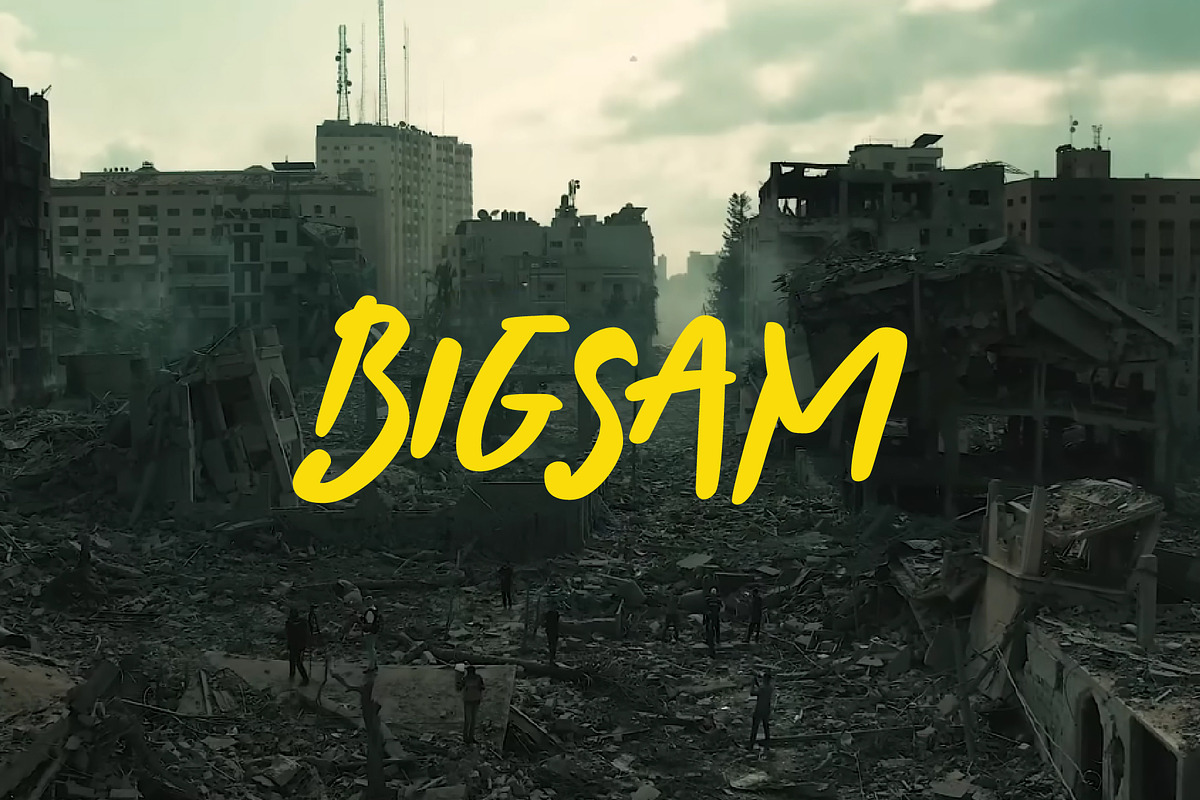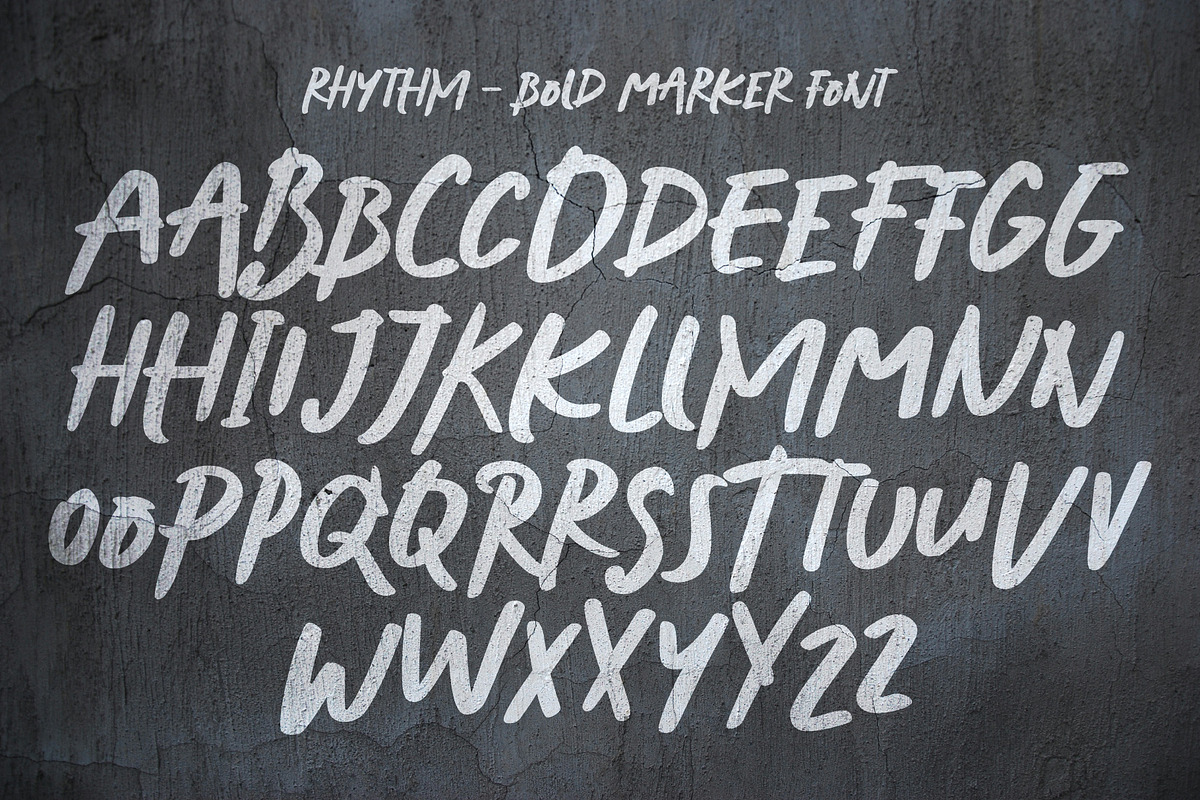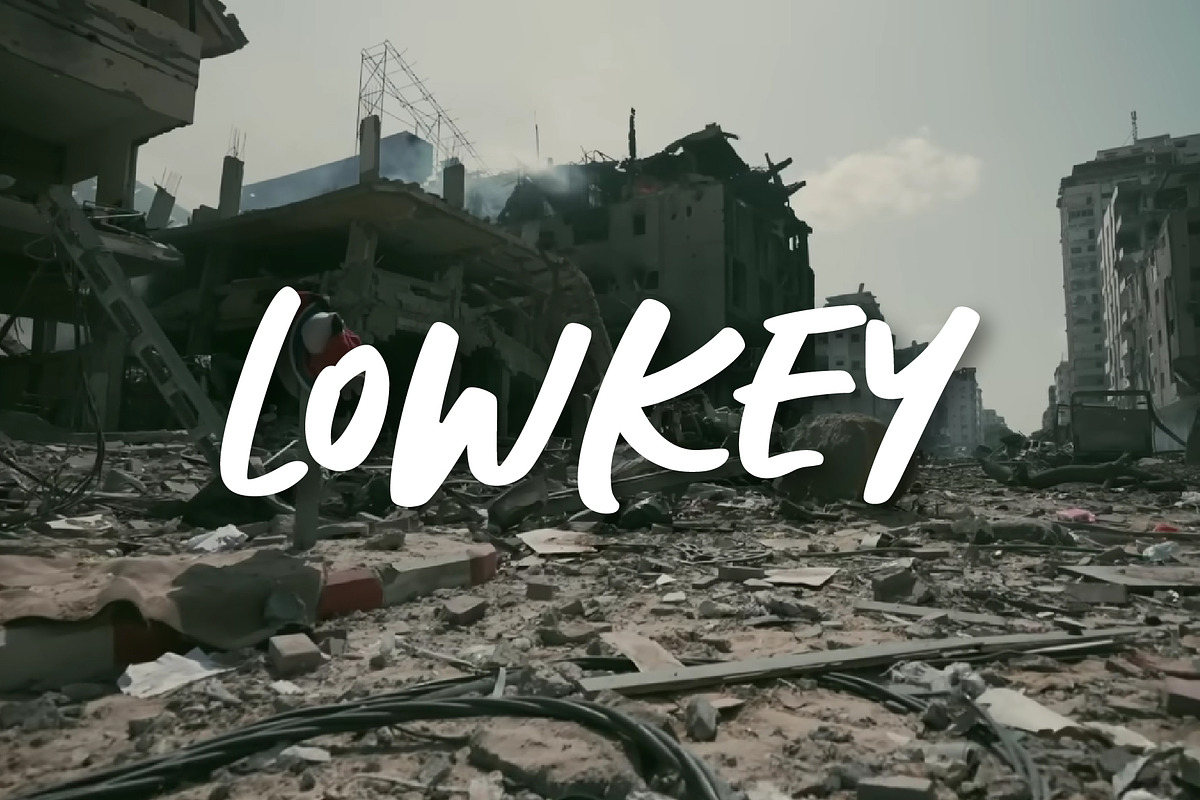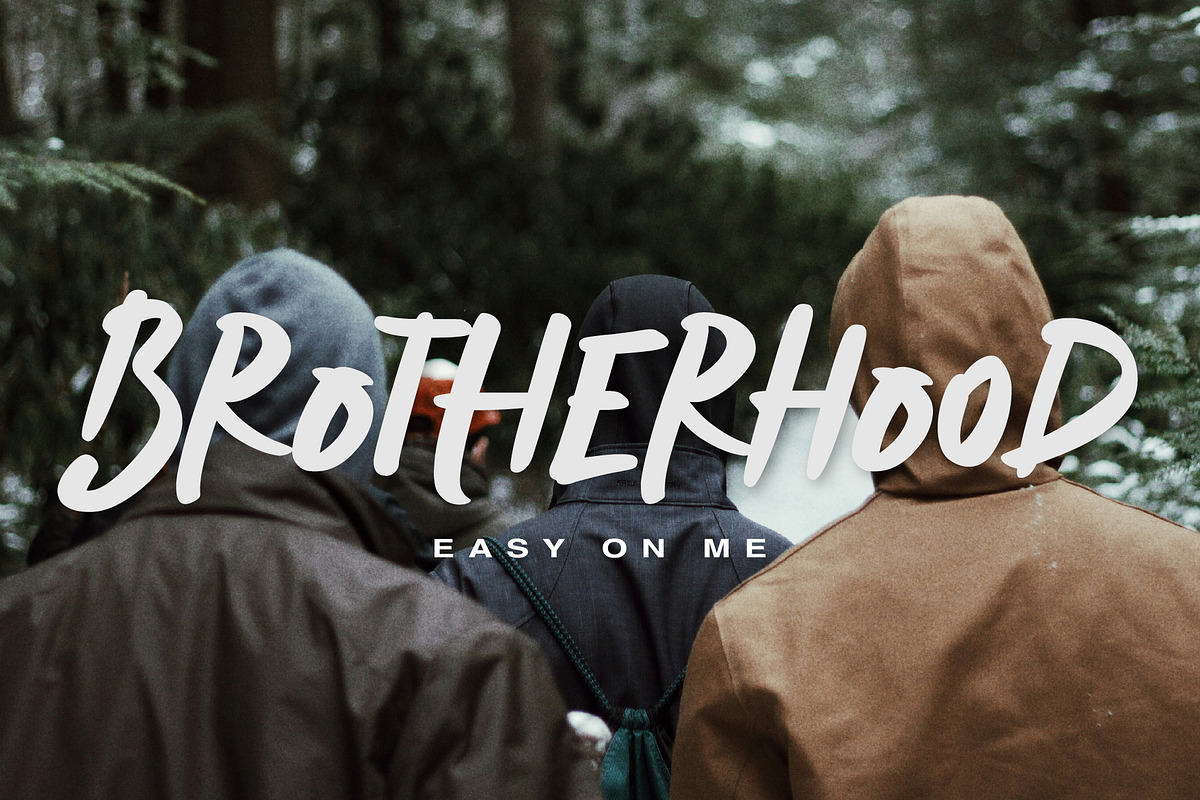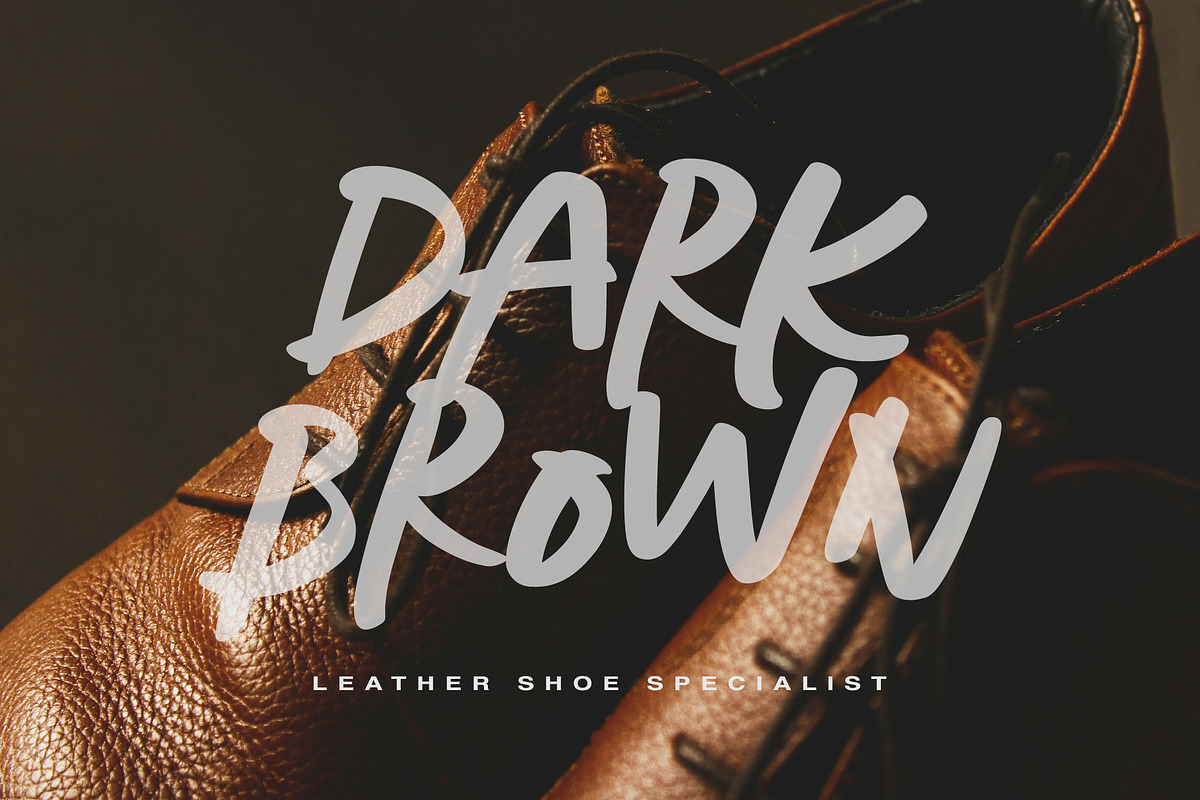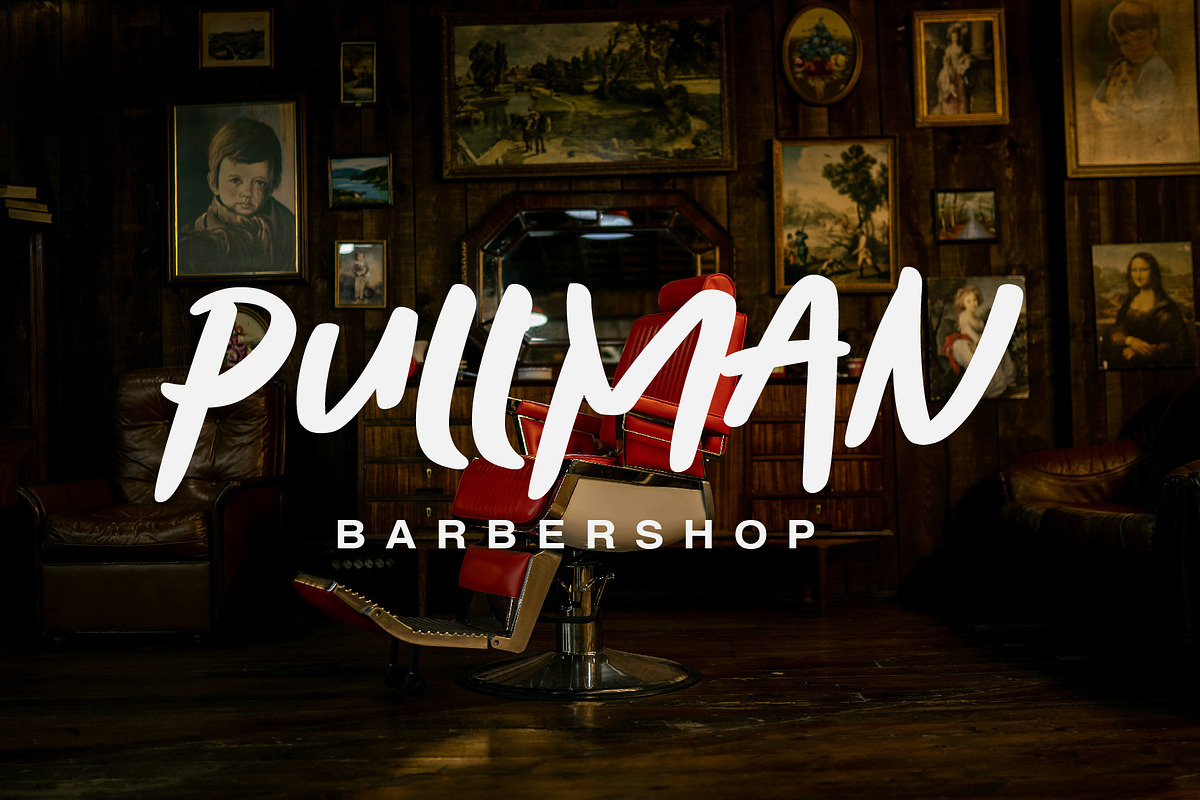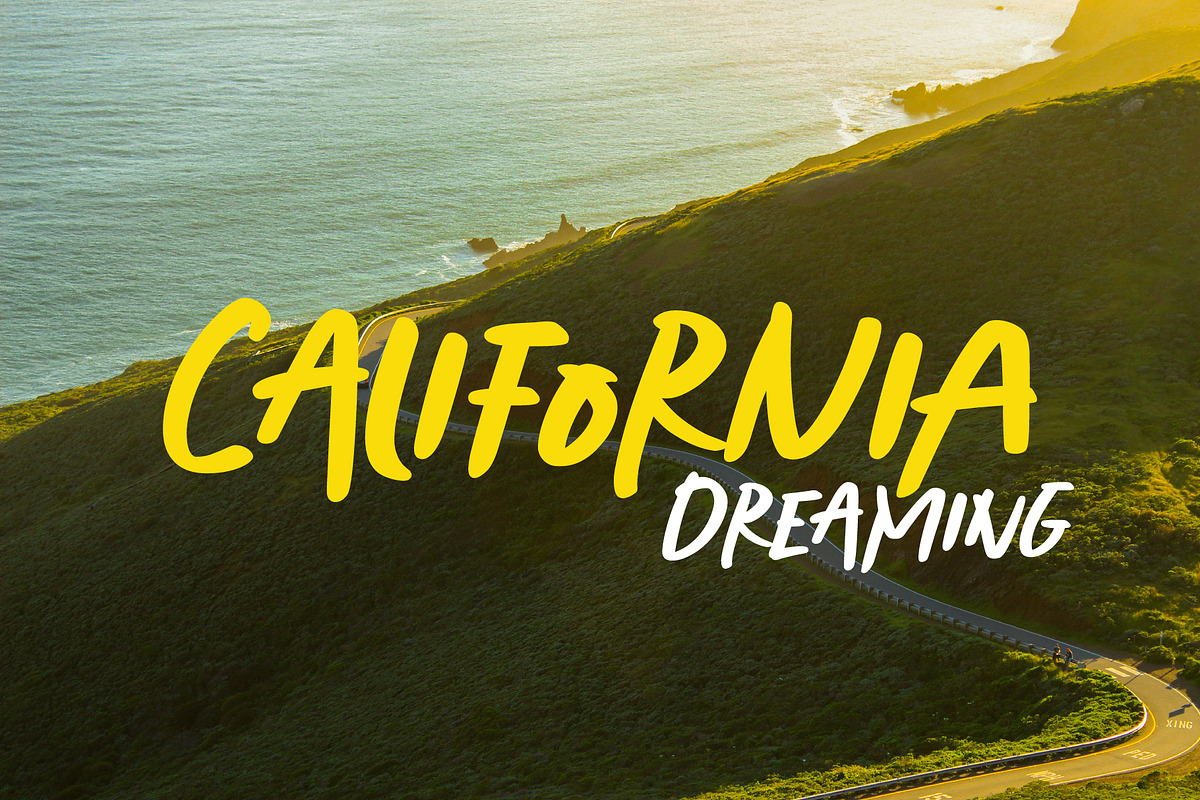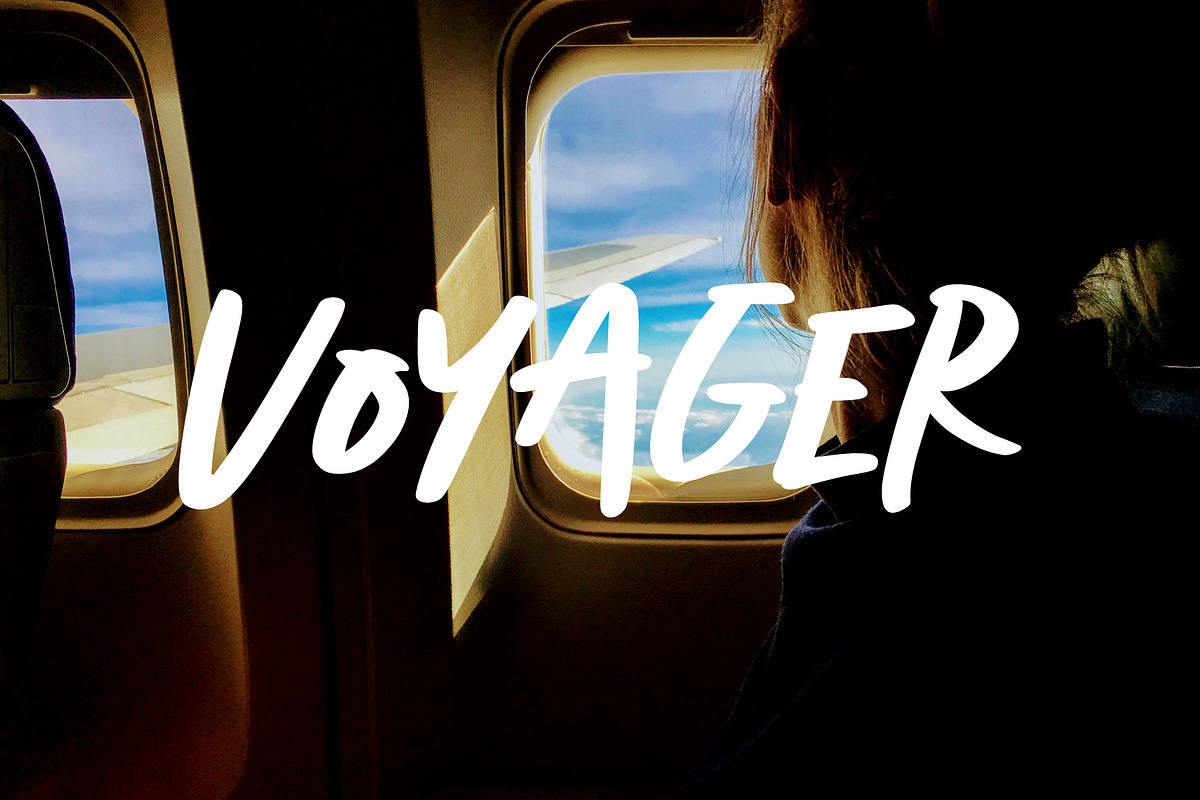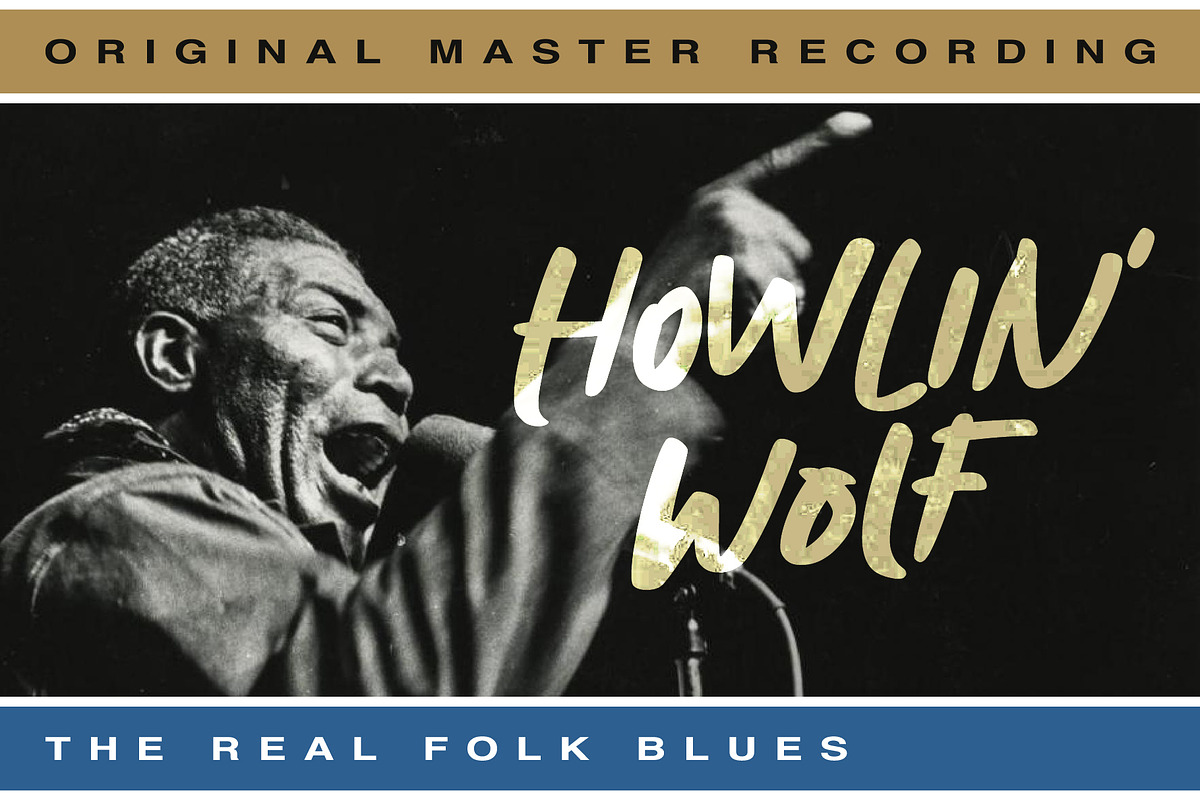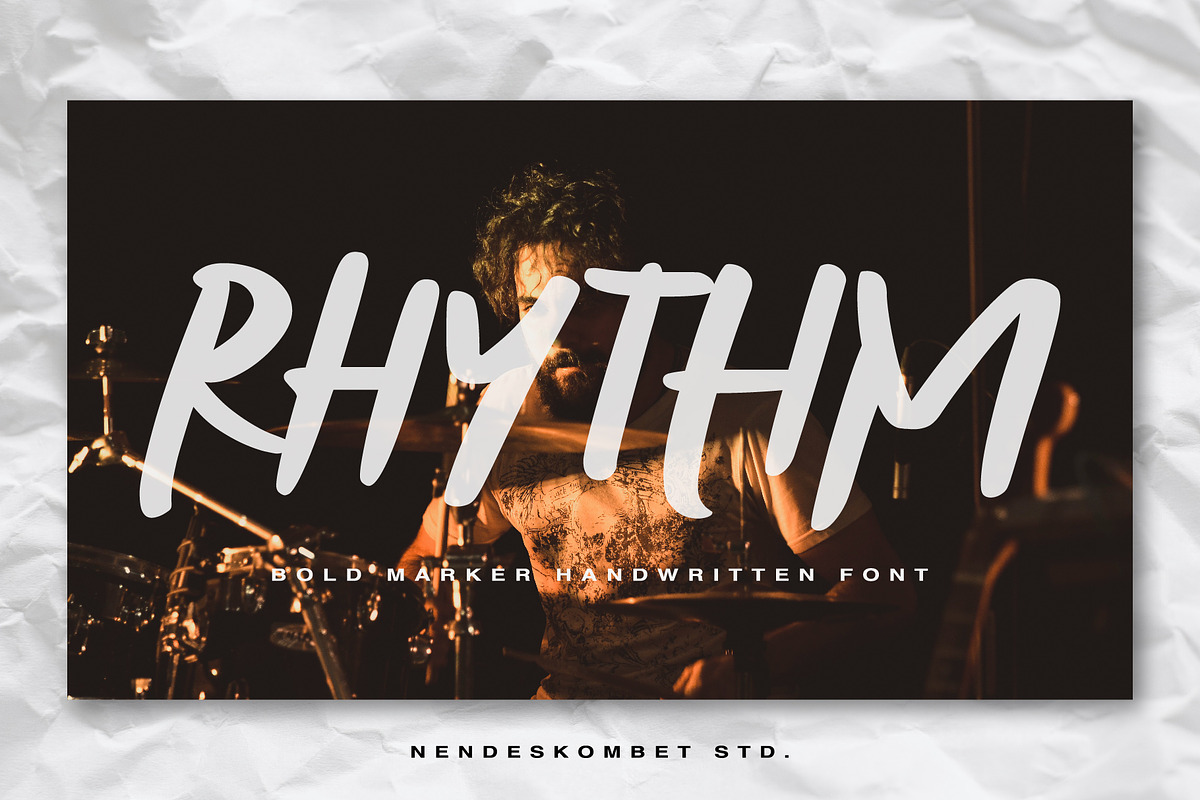
RHYTHM - BOLD MARKER HANDWRITTEN
RHYTHM is a cool, calm & sophisticated bold marker typeface with an organic feel and effortless vibe.
Bringing a natural, handwritten elegance, it's perfect for your next design. Whether you're crafting a logo, writing poetry, creating social media graphics, or working on photography, Juniper Bay's versatility will take your work to the next level.
vary your writing project by mixing upper and lower case letters in each word, an easy way to create natural writing.